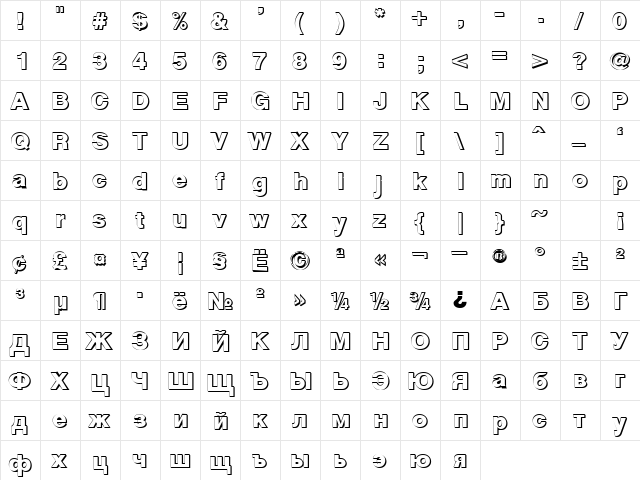
Cyrvetica Shadow Bold
Design Context for Cyrvetica Shadow Typeface
Cyrvetica Shadow brings ornamental detail and strong personality to headlines and identities, where visual impact matters more than quiet functionality. The heavy weight commands attention and anchors typographic hierarchies.
Font Pairing: Pair with a clean neutral sans-serif for body copy to let Cyrvetica Shadow's character lead without overwhelming the composition.
Pro Tip: Use Cyrvetica Shadow exclusively at display sizes — it was designed to be seen, not read at length. Let a neutral companion handle body copy.